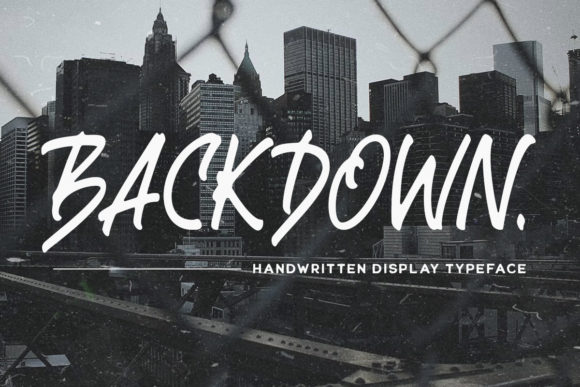
About Backdown Font
Introducing Backdown, a cool handwritten font. This typeface is perfect for projects such as logos, invitations, labels, magazines, books, greeting/wedding cards, packaging, fashion, makeup, stationery, novels, labels, and any advertising purpose.